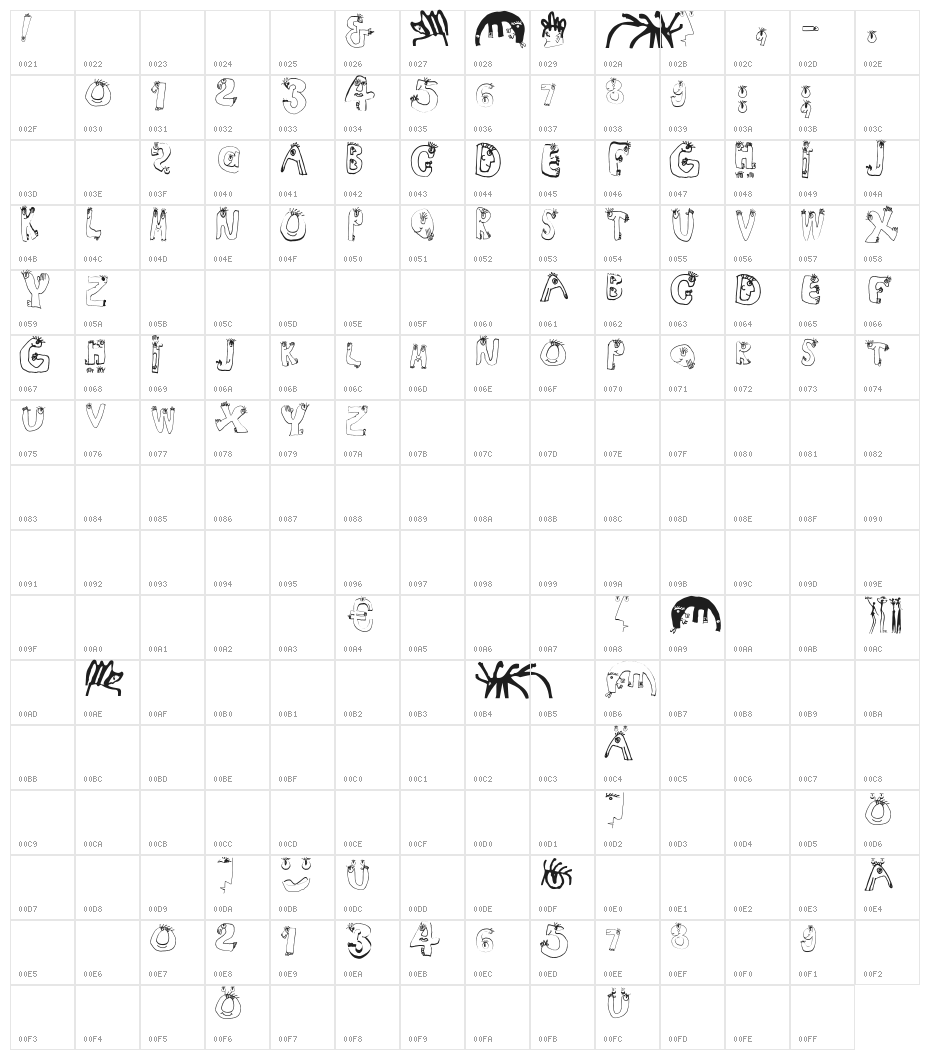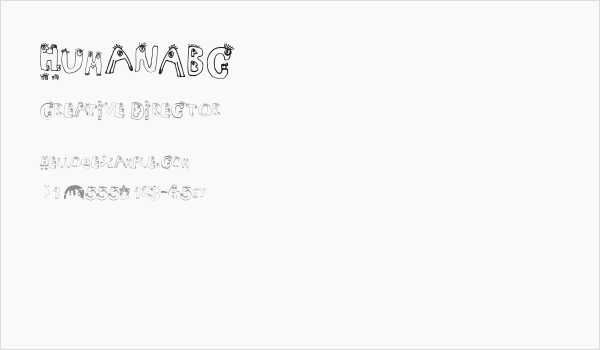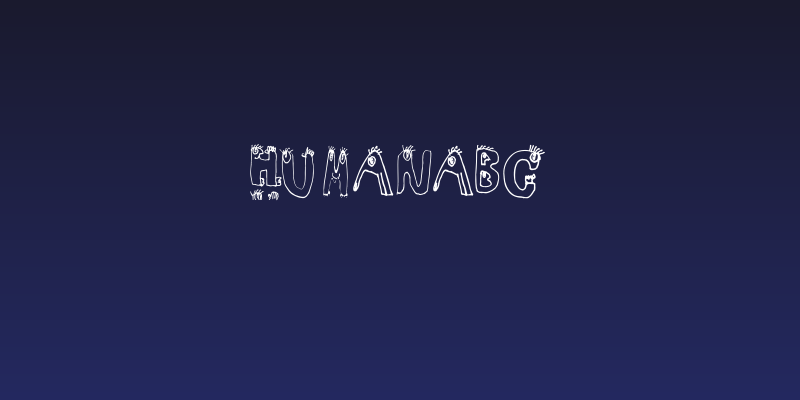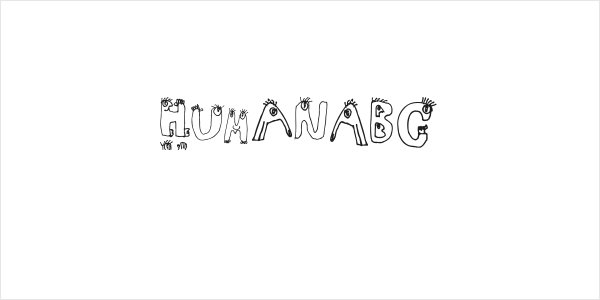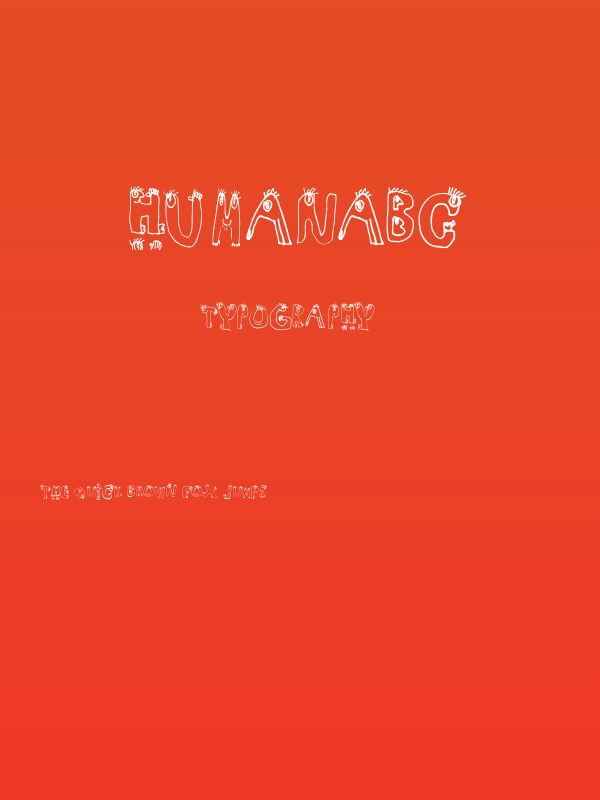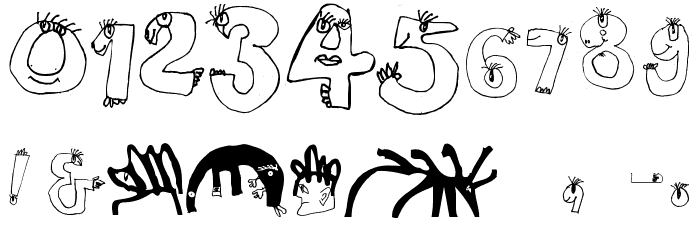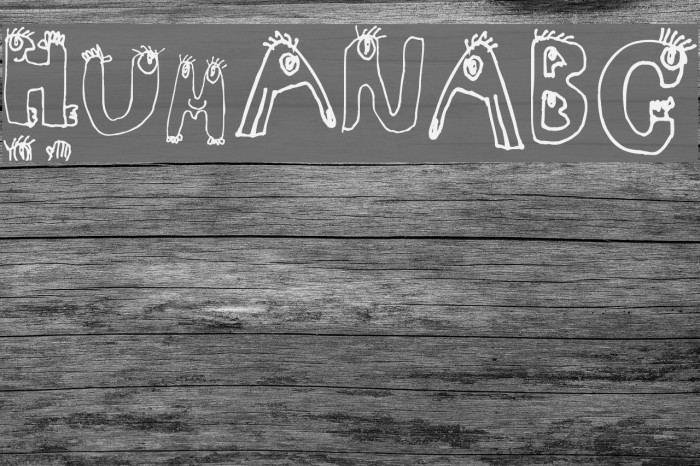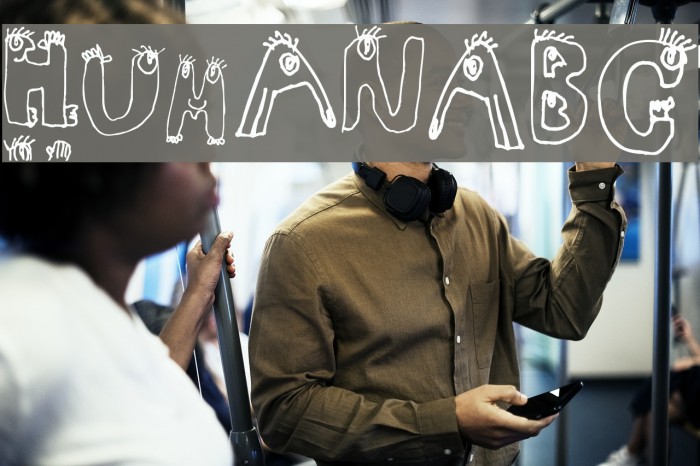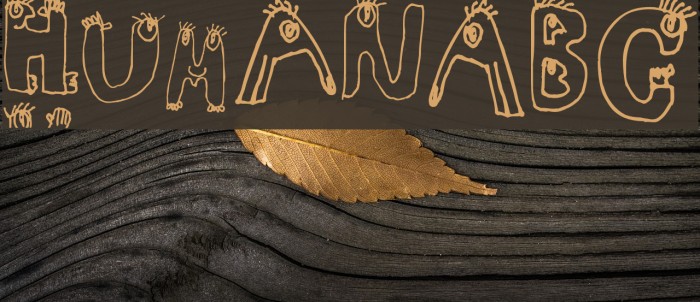
HumanABC Font
HumanABC Description
This playful and whimsical font features characters that are creatively designed with human-like elements, such as eyes and hair, giving each letter a unique personality. The strokes are uneven and hand-drawn, adding to the font's quirky and artistic appeal. The uppercase and lowercase letters maintain a consistent style, while the numbers and special characters follow the same imaginative theme. This font is perfect for projects that require a fun and engaging visual element, capturing attention with its distinctive and lively appearance.
| Overall Style | Playful, Artistic |
| Proposed Projects | Ideal for children's books, playful branding, creative posters, and artistic invitations. |